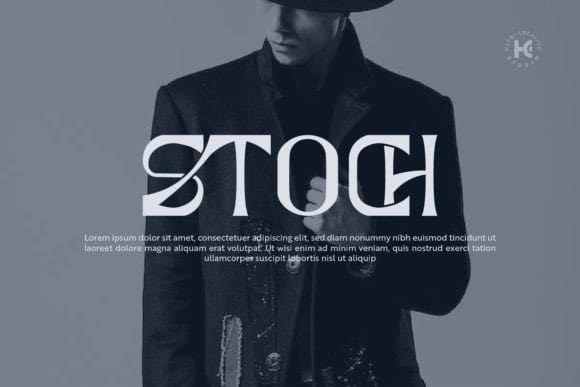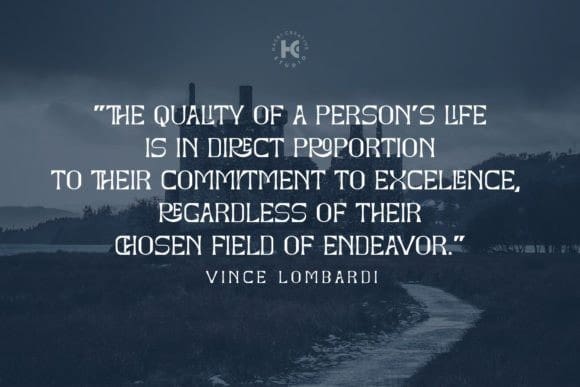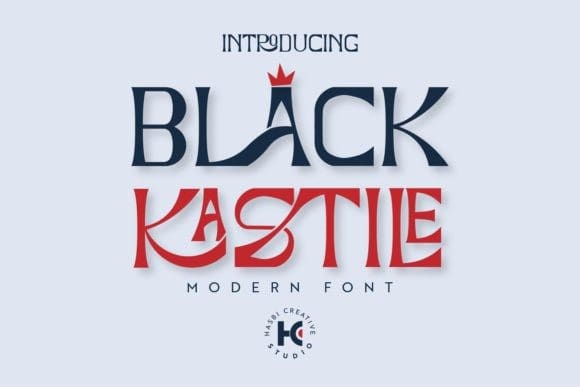
Black Kastile Font
Black Kastile Font – Modern Font – All-Capital Font, It is perfect for headings, flyers, greeting cards, product packaging, book covers, printed quotes, logotypes, apparel designs, album covers, etc.